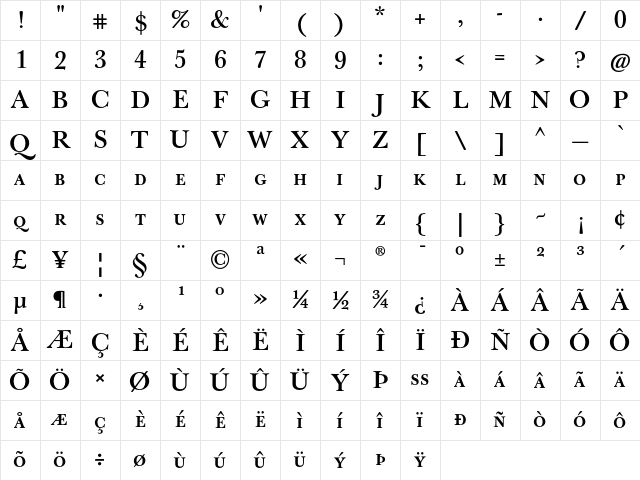
J Baskerville Caps Bold Free Font
J Baskerville Caps Bold
Foundry: Frantisek Storm, www.stormtype.com
Design Context for J Baskerville Caps
J Baskerville Caps is a composed and adaptable typeface that performs quietly and consistently across a wide range of design contexts. Its bold stroke weight gives it real presence on the page.